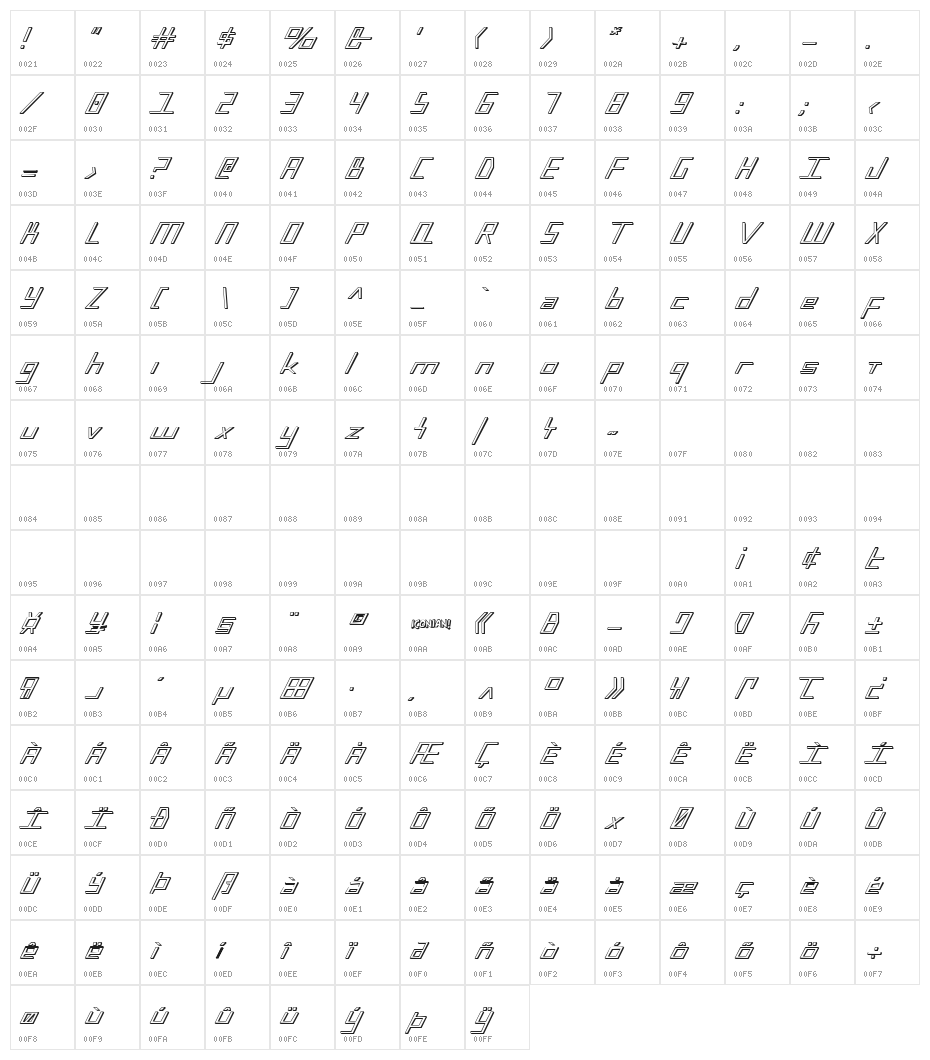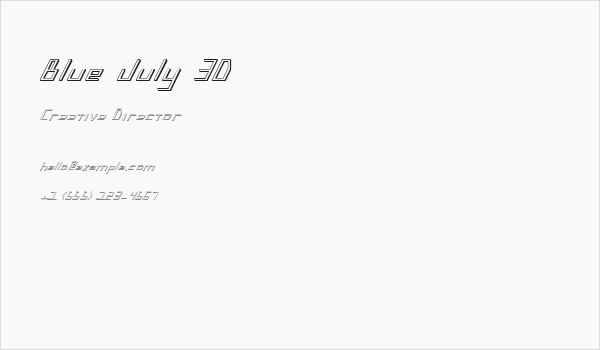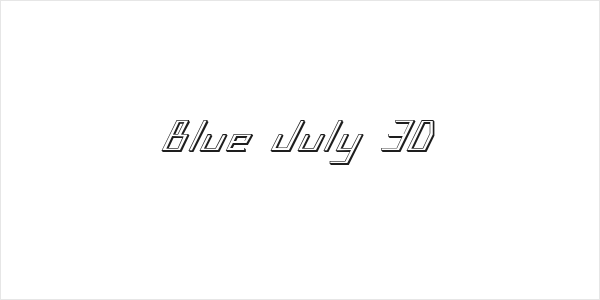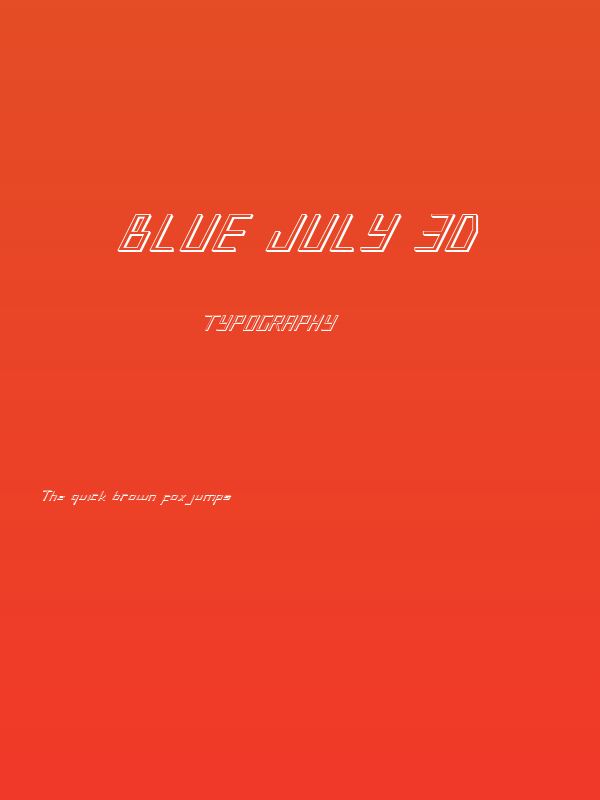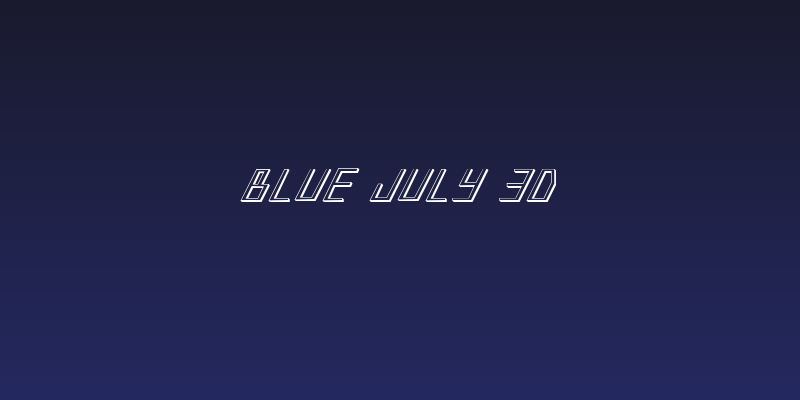
Blue July 3D Font
Blue July 3D Description
This font features a modern, geometric design with a 3D effect that gives it a dynamic and futuristic appearance. The characters are outlined with a consistent stroke width, creating a sense of depth and structure. The uppercase and lowercase letters maintain a uniform style, with angular lines and sharp edges that contribute to its contemporary look. The numerals and special characters follow the same design principles, ensuring a cohesive appearance across all glyphs. This font is ideal for projects that require a bold and eye-catching typeface, such as technology-related branding, posters, or digital media.
Proposed ProjectsIdeal for technology branding, posters, digital media, and futuristic designs.